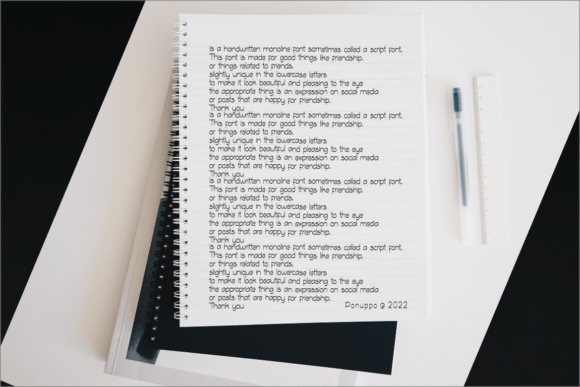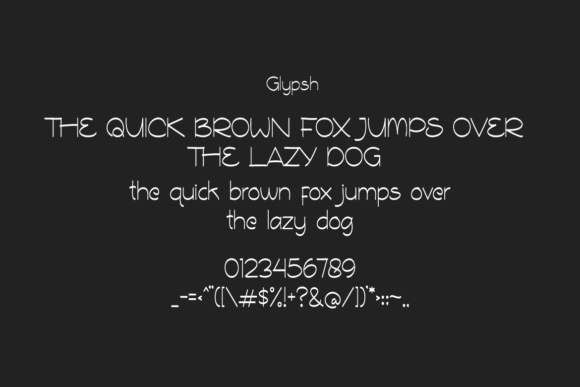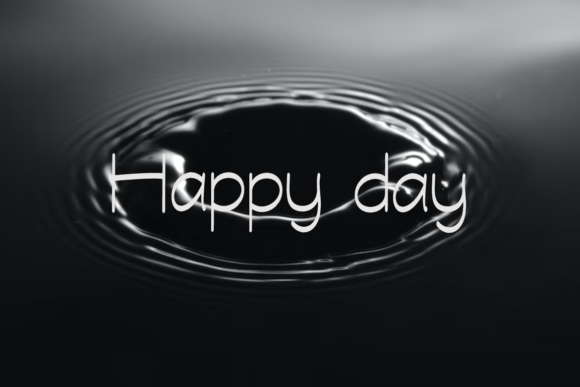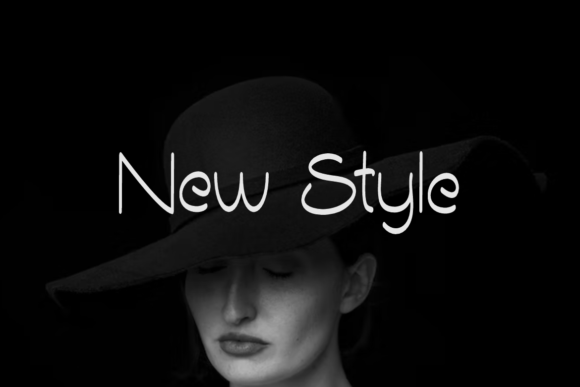
Ye Loop Font
About Ye Loop Font
Ye Loop is an elegant, classy, and minimalist script font. It’s a great font for fashion, apparel projects, signature, album covers, logos, branding, magazine, social media, & advertisements, but also works great for other projects.